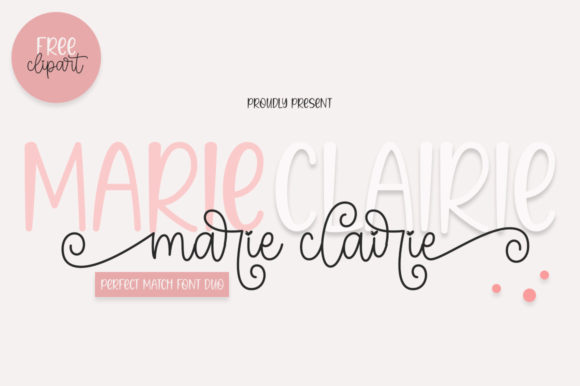
Unleash the elegance and charm of Marie Clairie, a captivating script font family meticulously crafted by Fillo Graphic. This exquisite duo consists of two distinct fonts, each possessing its own unique allure, yet harmonizing beautifully when combined.
Marie Clairie effortlessly embodies chic and cheery vibes, making it an ideal choice for adding a touch of sophistication to your creative endeavors. Its carefully designed glyphs and swashes are PUA encoded, ensuring effortless access and seamless integration into your digital projects.
With Marie Clairie, you'll find endless opportunities to express your individuality and style. Whether you're designing wedding invitations, crafting personalized logos, or creating eye-catching social media graphics, this font family will captivate your audience and leave a lasting impression.
Imagine transforming your iPhone signature into a work of art with Marie Clairie. Its whimsical strokes and graceful curves will add a touch of personal charm to every message you send. Elevate your digital communication and make a statement with each tap of your keyboard.
Marie Clairie is more than just a font; it's an invitation to let your creativity soar and embrace the joy of self-expression. Its versatility lends itself to a multitude of projects, from elegant branding materials to playful scrapbook pages.